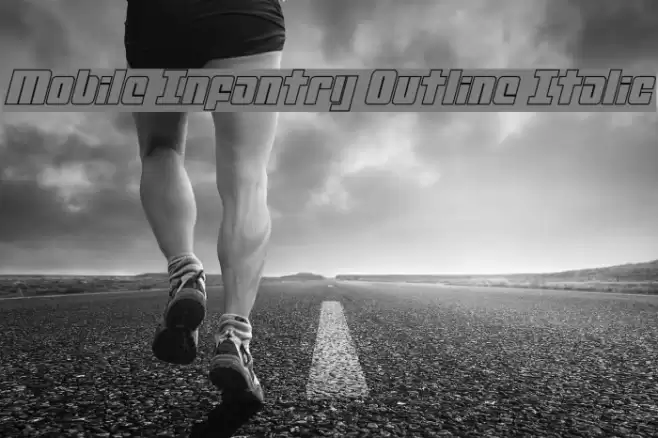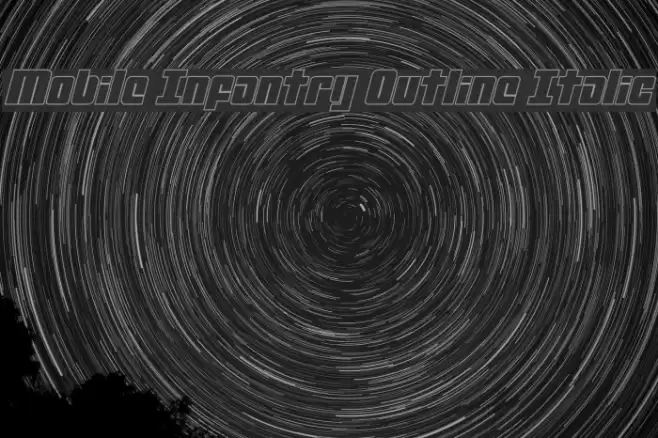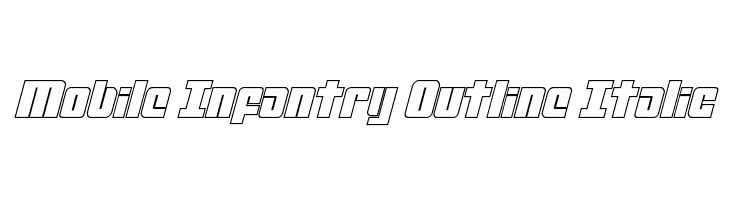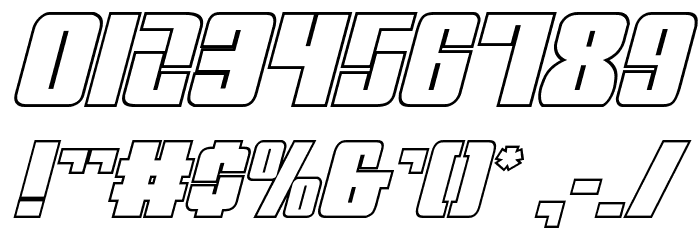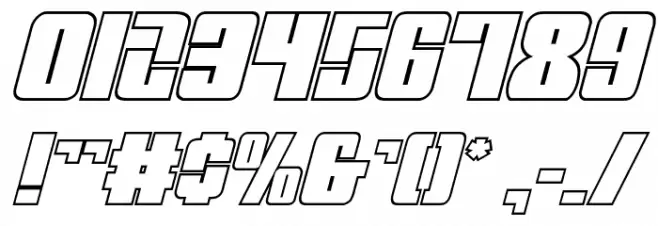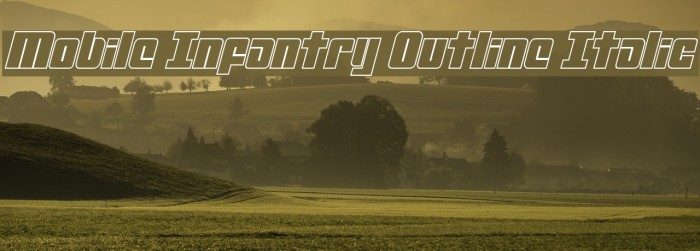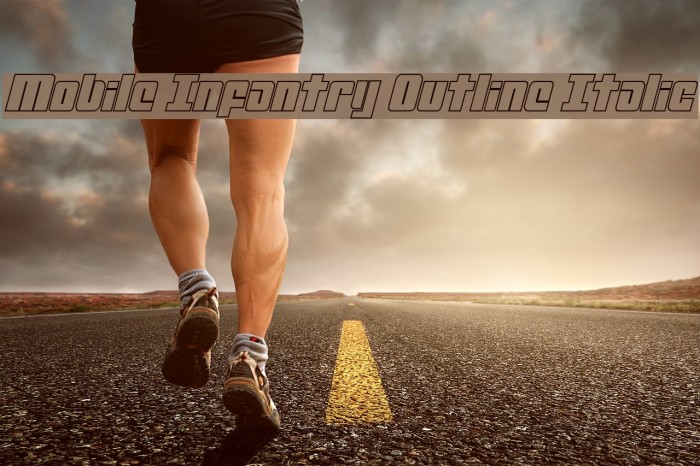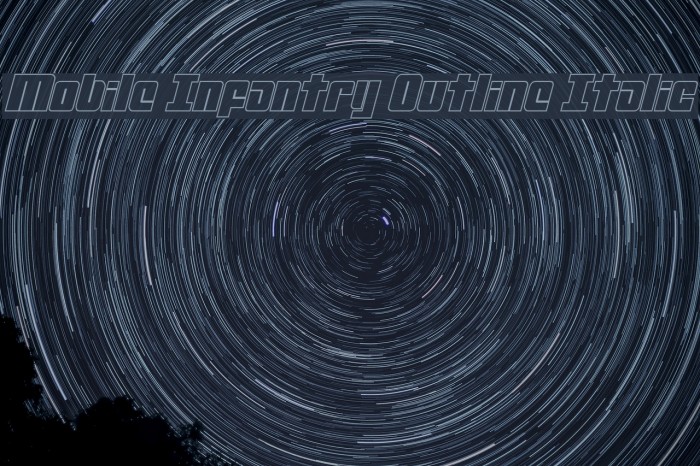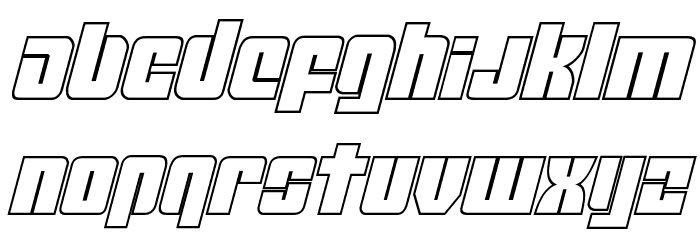
Mobile Infantry Outline Italic
This font features a bold, geometric design with an outline style that gives it a distinct, futuristic appearance. The italic slant adds a dynamic and forward-moving feel, making it ideal for projects that require a modern and edgy look. The uppercase and lowercase letters are consistent in style, with sharp angles and clean lines that enhance its readability. The numbers and special characters maintain the same aesthetic, ensuring a cohesive look across all text elements. This font is particularly suitable for use in digital media, gaming, and technology-related projects due to its contemporary and innovative design.
A bold, geometric outline font with an italic slant, perfect for modern and tech-oriented designs.
- Proposed Projects: Ideal for digital media, gaming interfaces, technology branding, and futuristic posters.
- Use Case: Headlines, Logos, Digital Media